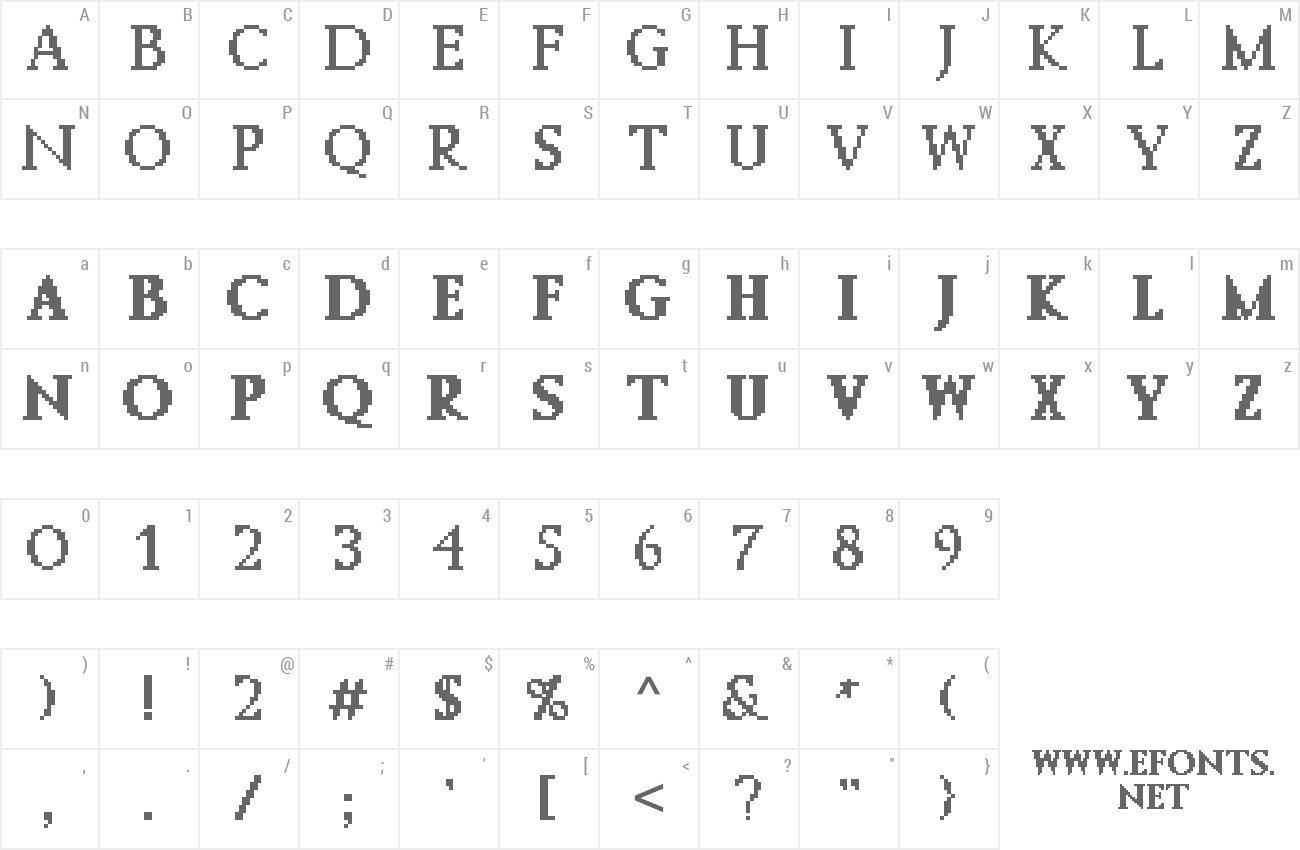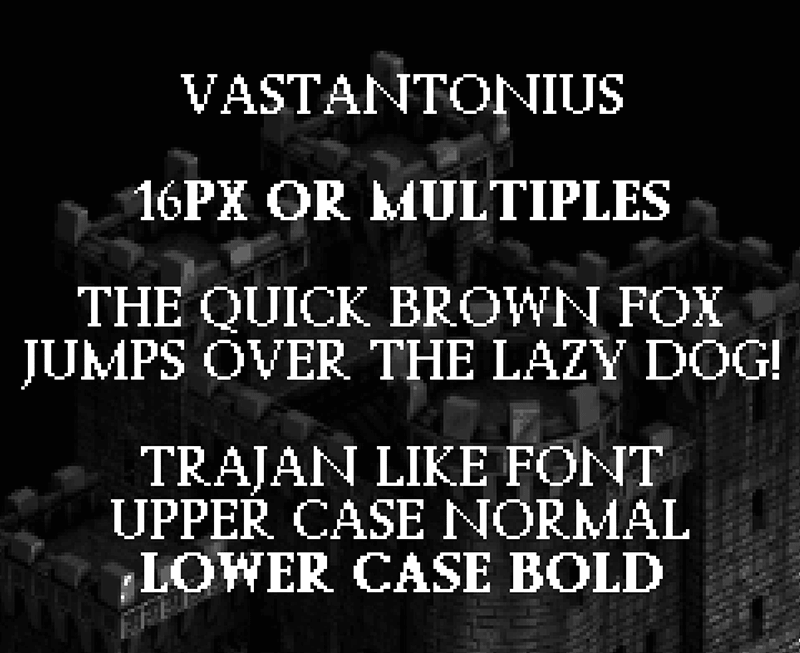
Trajan like pixel font, upper case normal and lower case bold! To use this font, please, make a donation of 1 dollar or more to my pay pal: https://www.paypal.com/cgi-bin/webscr?cmd=_donations&business=UNV52MULJ24FG&item_name=I+love+your+fonts%21�cy_code=USD&source=url More on http://www.juspifon.com/ |